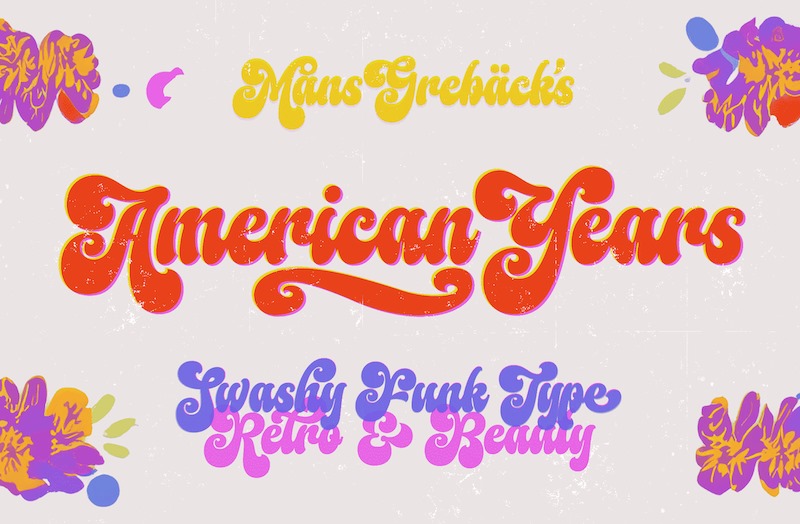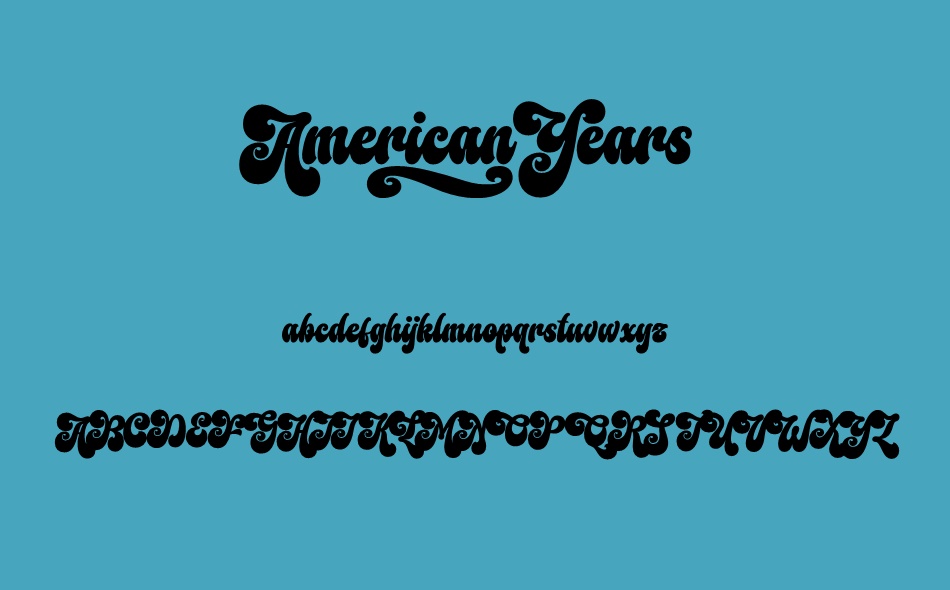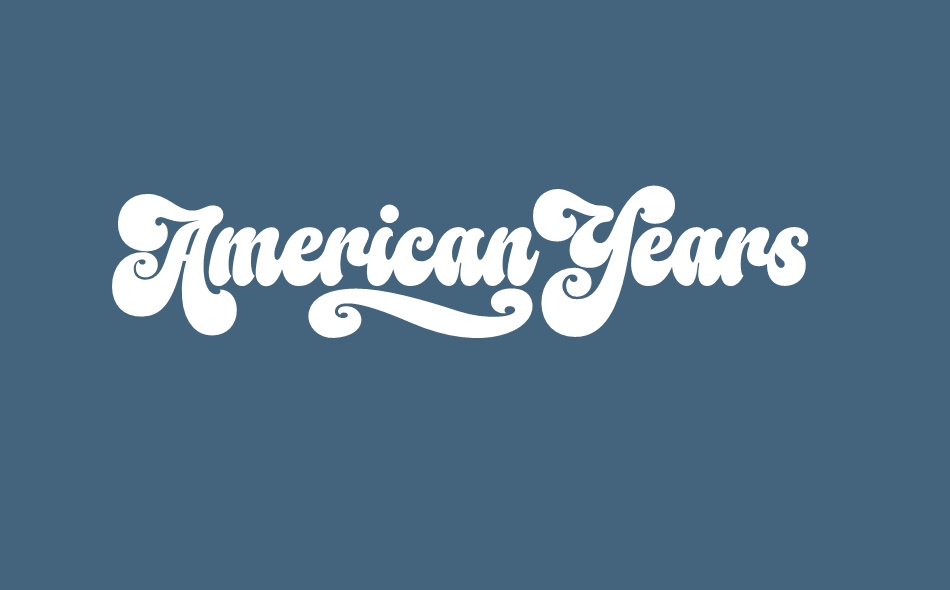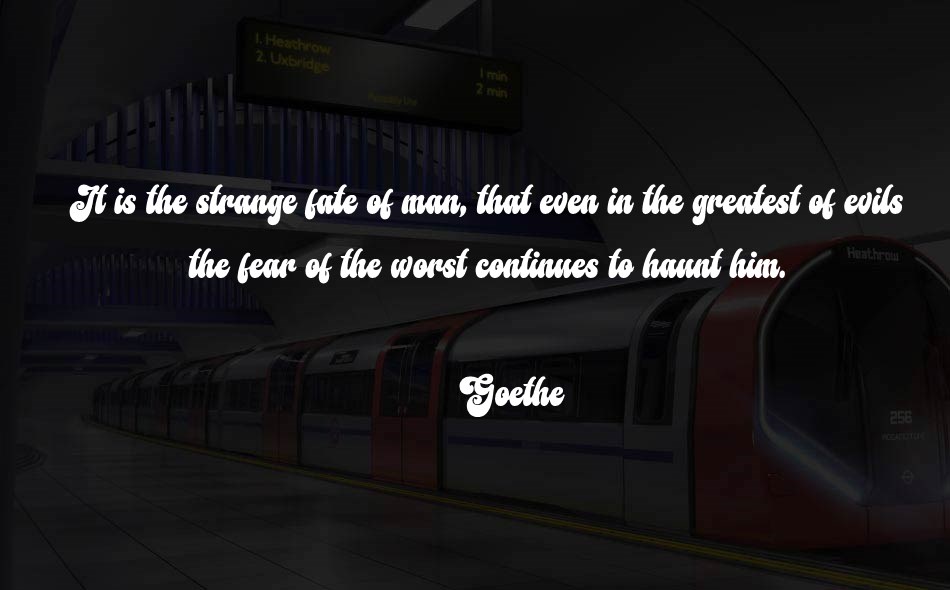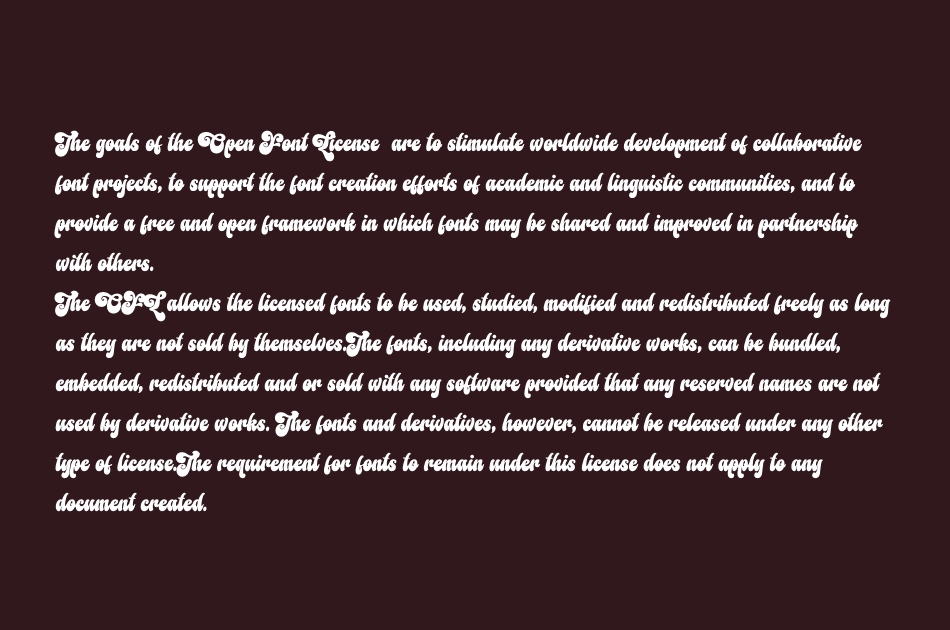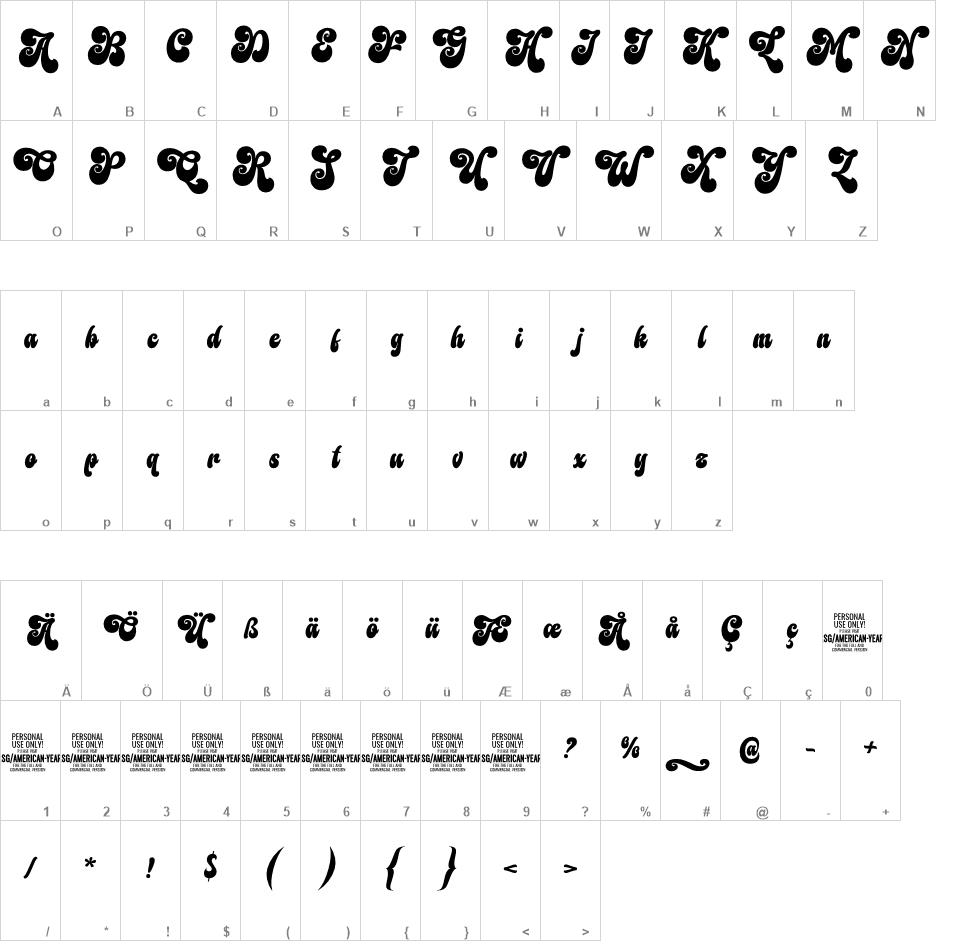
American Years font
American Years is a font dipped in the '70s.
Like a vinyl, it's nostalgic, authentic, and full of character.
Use underscore _ after any word to make a swash.
Example: Retro_
Use multiple underscores for a longer tail.
Example: Funkie____
American Years is a font dipped in the '70s. You know, it's like hearing a vinyl record for the first time—nostalgic, authentic, and full of character. It's not just a typeface; it's a mood.
The font features bold, swashy characters and a unique set of glyphs, making it ideal for headlines, posters, and retro branding.
Use underscore _ after any word to make a swash.
Example: Retro_
Use multiple underscores for a longer tail.
Example: Funkie____
American Years is built with advanced OpenType functionality and has a guaranteed top-notch quality, containing stylistic and contextual alternates, ligatures, and more features; all to give you full control and customizability. It has extensive lingual support, covering all Latin-based languages, and includes all the characters and symbols you'll ever need.
Behind this retro revival is Mans Greback. Known for pushing the boundaries of type design, Greback has ventured into the vivid nuances of aesthetic retrospection with American Years. His portfolio is a testament to his versatility and daring, turning simple alphabets into powerful visual narratives.